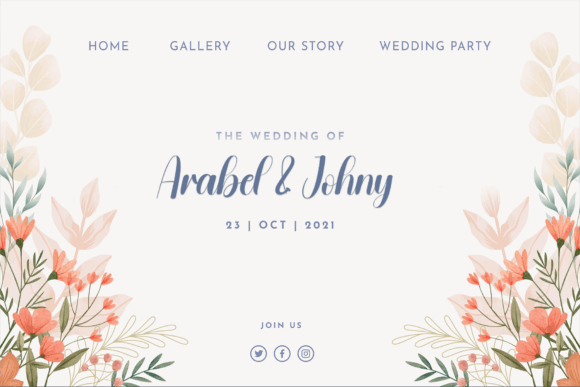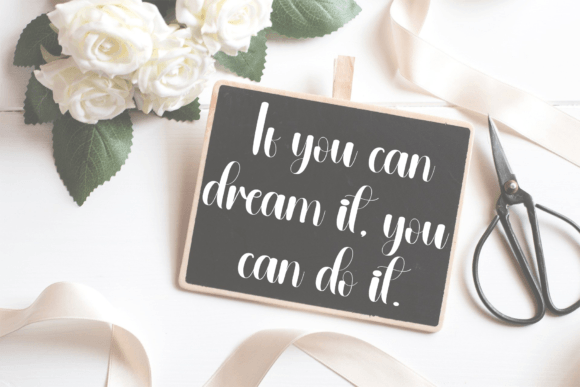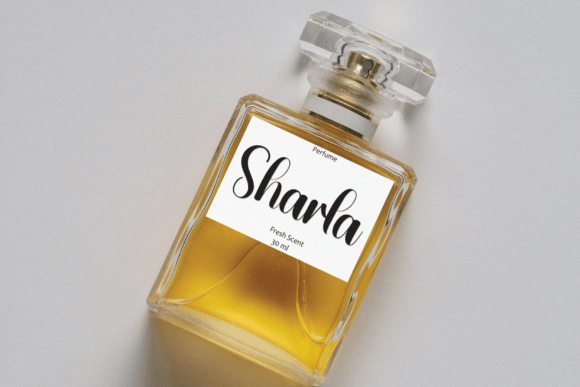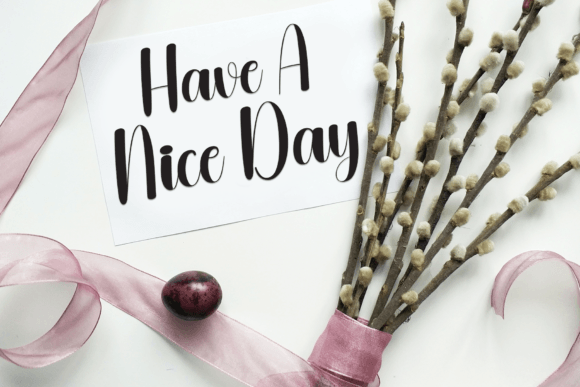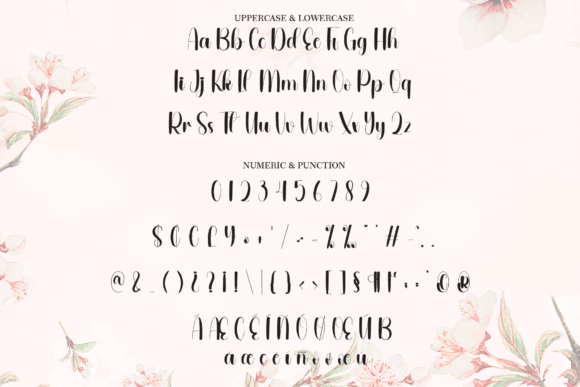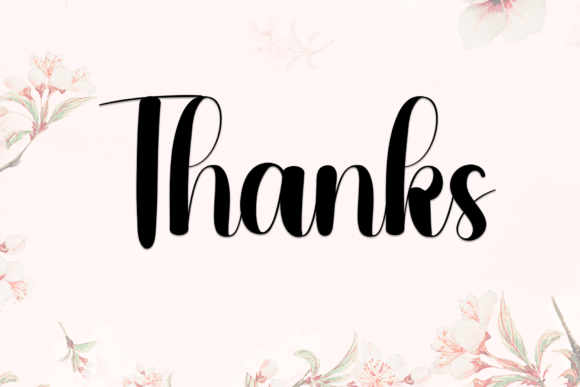
When Words Bloom into Beauty: The Story of Cherry Blossoms Font
Have you ever found yourself lost in a sea of blank paper, searching for the perfect words to express your feelings? Maybe it’s a wedding invitation, a birthday card, or a heartfelt letter to a loved one. Whatever the occasion, we’ve all been there – yearning for a font that captures the essence of our emotions. For designers and writers alike, finding the right font can make all the difference between a simple message and a work of art.
Enter Cherry Blossoms Font, a sweet and friendly handwritten font that brings a touch of elegance to any design. This fresh and casual font is perfect for adding a lovely touch to your creations, making it ideal for writing wedding invitations, cards, or any other design that needs a gentle reminder of love and beauty.
Key Features of Cherry Blossoms Font
- Font Family: Cherry Blossoms Font offers a unique, elegant script font that is perfect for various designs.
- Unique Characteristics: Features delicate, hand-drawn brushstrokes and subtle texture, giving it a distinctive, organic feel.
Cherry Blossoms Font Review
Overall, I think the Cherry Blossoms Font is a lovely addition to any design project. ✨ Its delicate, hand-drawn feel is reminiscent of traditional Japanese art, making it perfect for spring-themed designs, wedding invitations, or any project that needs a touch of whimsy.
The font is highly customizable, with a wide range of weights and styles to choose from. This allows designers to achieve the perfect balance of elegance and playfulness in their designs. Additionally, the font’s high-quality vectors make it easy to scale and manipulate without losing any of its intricate details. ✨
- ⚠️ Limited character set: The font may not have all the characters you need, which could be a problem for designers working on complex projects.
- ⚠️ Not suitable for large text: Due to its delicate nature, the font may become difficult to read when used for large blocks of text.
- ⚠️ Requires careful kerning: The font’s irregular shapes may require some extra attention to ensure proper spacing between characters.
Overall, I would give the Cherry Blossoms Font 4 out of 5 stars. While it has some limitations, its unique charm and high level of customization make it a great choice for designers looking to add a touch of elegance and whimsy to their projects.
For best results, use the Cherry Blossoms font in a bold or large size to make it stand out. You can also pair it with other fonts to create a unique and visually appealing design.
Common use cases include wedding invitations, greeting cards, and other decorative elements.
Pacifico is a beautiful, elegant script font that is perfect for adding a touch of sophistication to designs. It’s ideal for use in wedding invitations, greeting cards, and other elegant projects. When to use: For creating a romantic, luxurious feel.
Compared to Cherry Blossoms Font, Pacifico has a more refined and polished look, making it suitable for high-end designs. While Cherry Blossoms Font has a more whimsical feel, Pacifico is more understated and elegant.
Great Vibes is a modern, cursive script font that is perfect for adding a playful touch to designs. It’s ideal for use in social media graphics, advertisements, and other creative projects. When to use: For creating a fun, energetic feel.
Compared to Cherry Blossoms Font, Great Vibes has a more dynamic and expressive look, making it suitable for projects that require a lot of energy and movement. While Cherry Blossoms Font has a more delicate feel, Great Vibes is more bold and attention-grabbing.